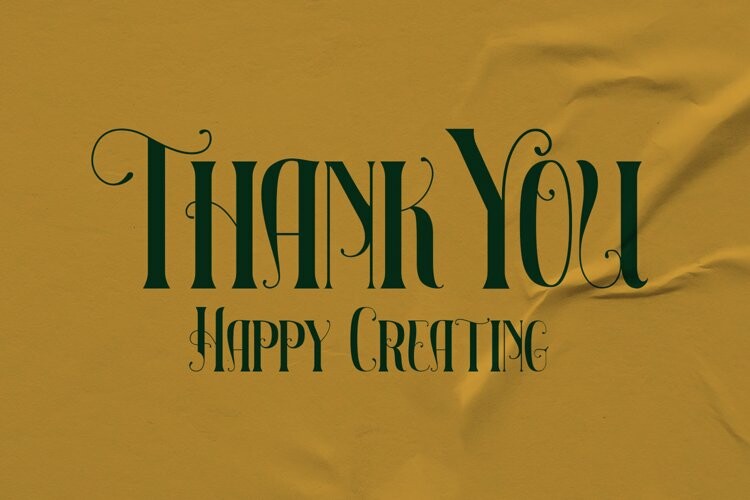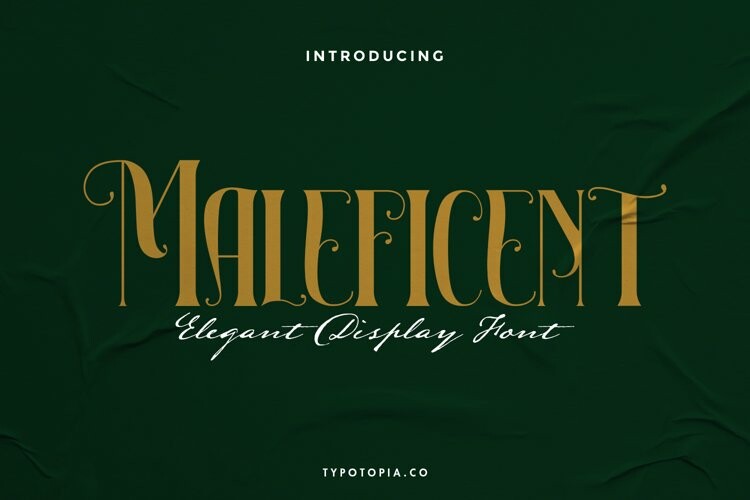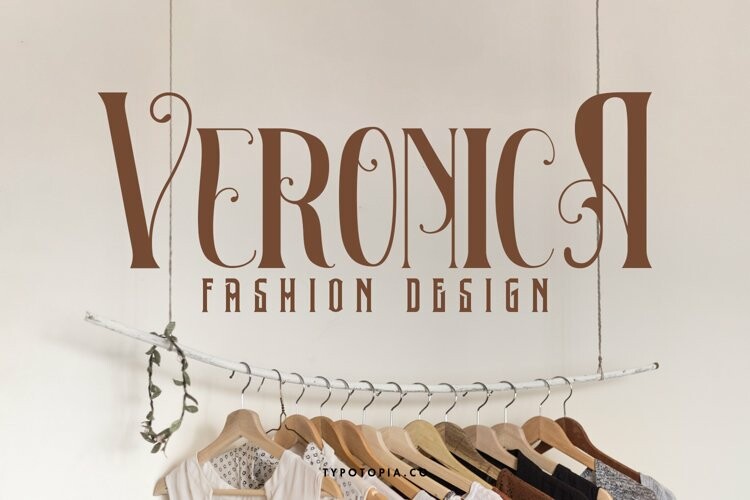
Maleficient The Elegant Display Font
Maleficient The Elegant Display FontIntroducing, Maleficient an incredibly Unique and Interesting Display Font!!
Maleficient is an incredibly Unique and Interesting Display Font for your Design that is absolutely great for your next creative project such as logos, printed quotes, invitations, cards, product packaging, headers, Logotype, Letterhead, Poster, Apparel Design, Label, and etc.
This Versatile Font includes also support a Multilingual Characters. Making this Font a Swiss Army knife in your Font Library. It’s extremely fun to use as each word can be transformed to your liking.